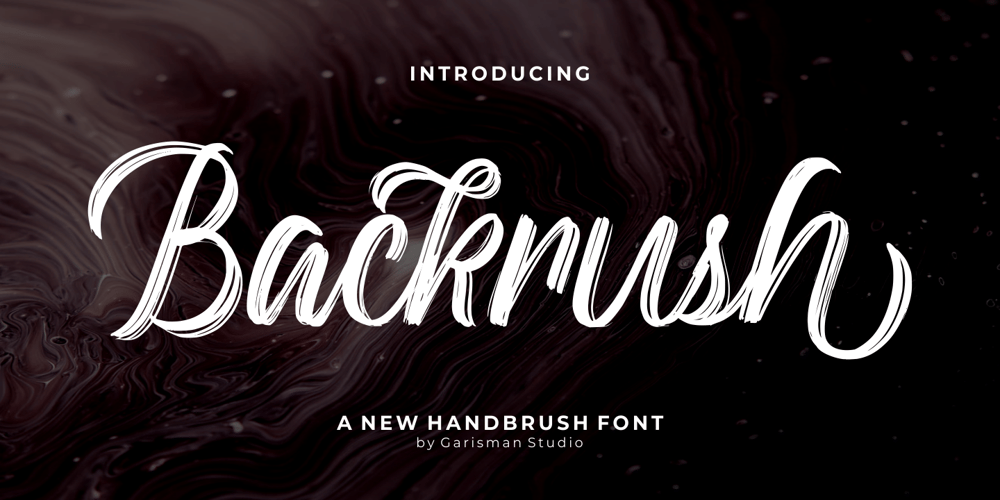
Backrush
Backrush font
Backrush Font Family was designed by Risman Ginarwan and published by Garisman Studio. Backrush contains 1 styles and family package options. Backrush combines attractive curves with a fresh urban edge; delivering a stylish hand-brushed look which is guaranteed to add an eye-catching appeal to your logo designs, brand imagery, handwritten quotes, product packaging, merchandise and social media posts.